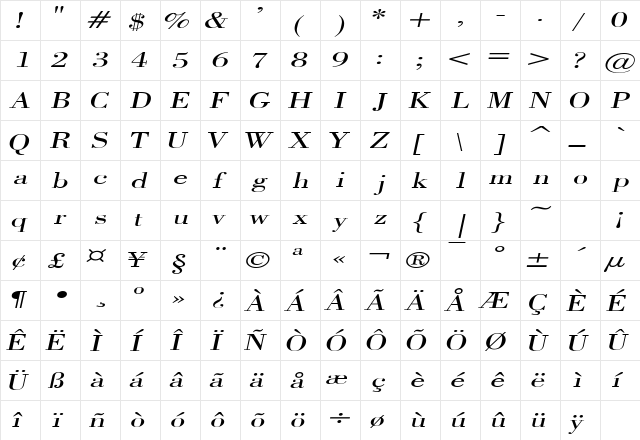
CapelliExtended Italic
Design Context for CapelliExtended Typeface
CapelliExtended is a composed and adaptable typeface that performs quietly and consistently across a wide range of design contexts. Its italic angle brings a sense of urgency and motion to the letterforms.
Pro Tip: Try CapelliExtended for annotation and caption copy alongside an upright companion — the contrast in angle creates a dynamic but ordered typographic system.